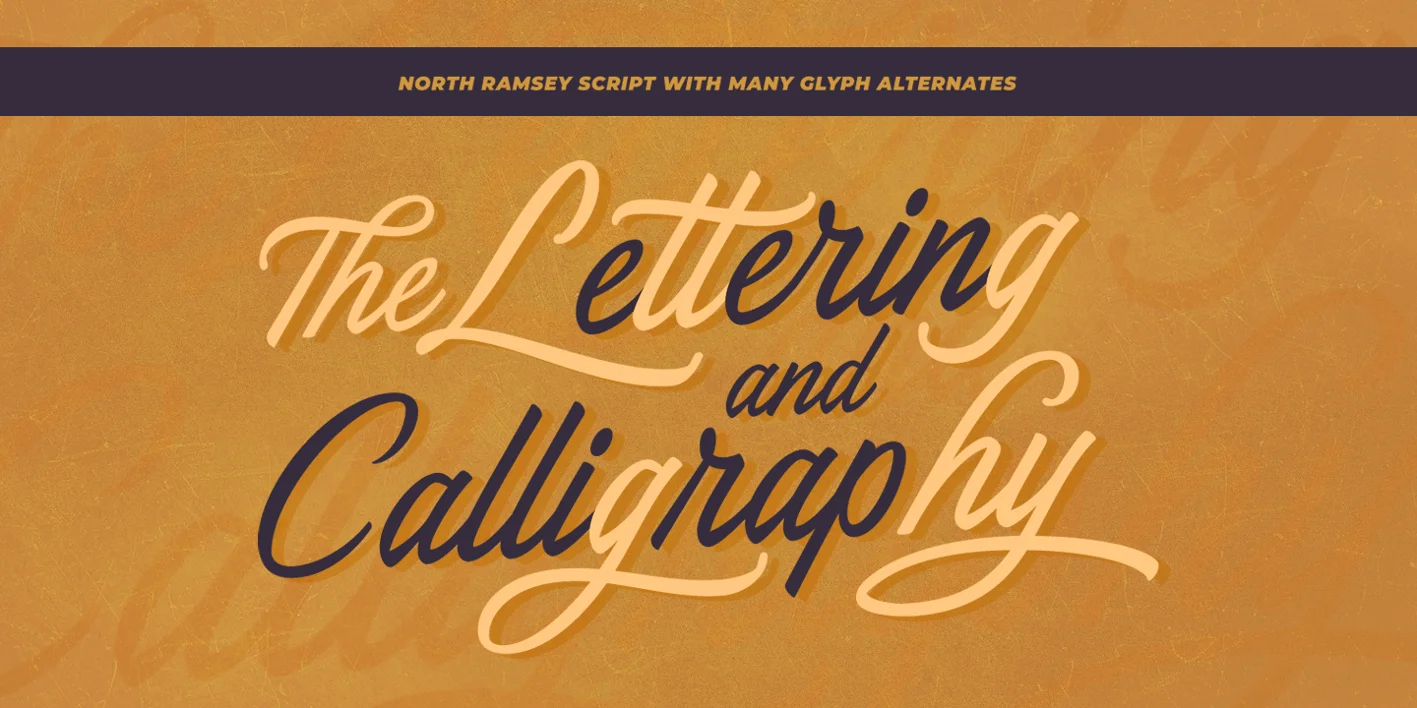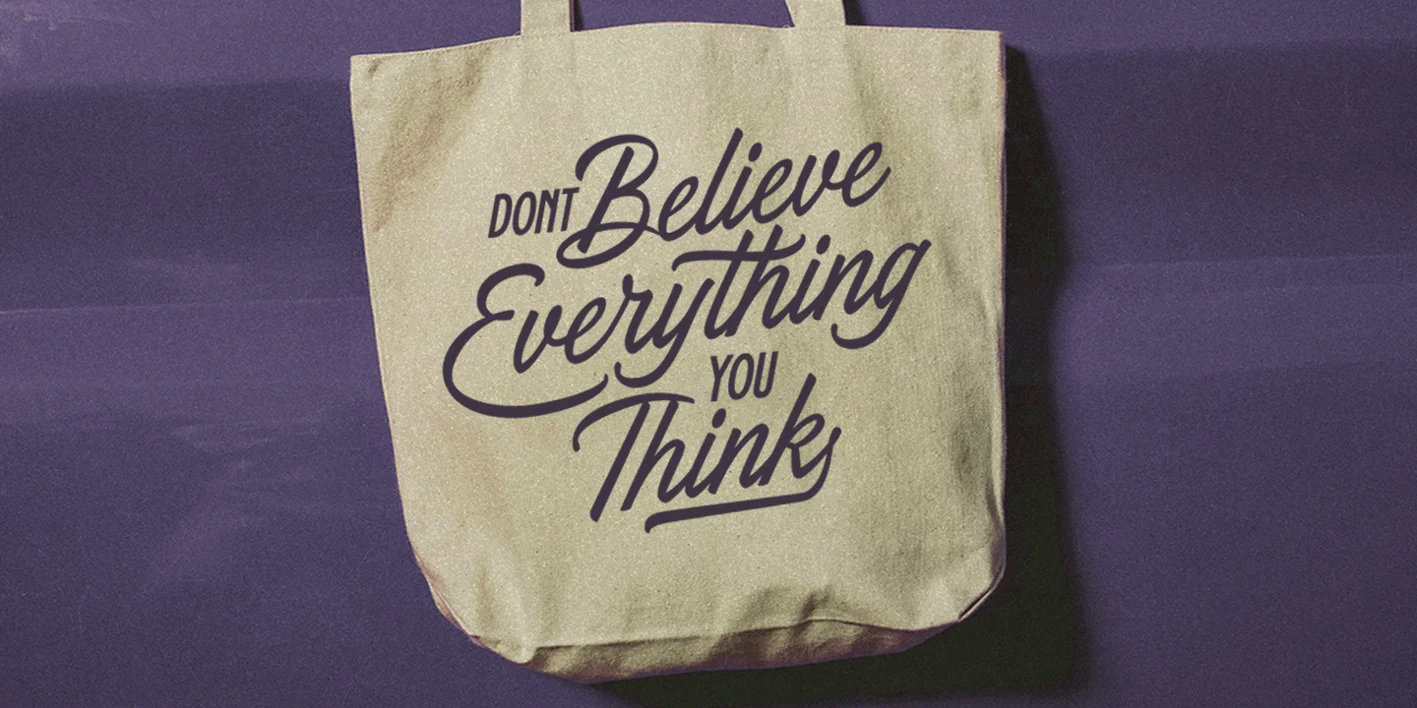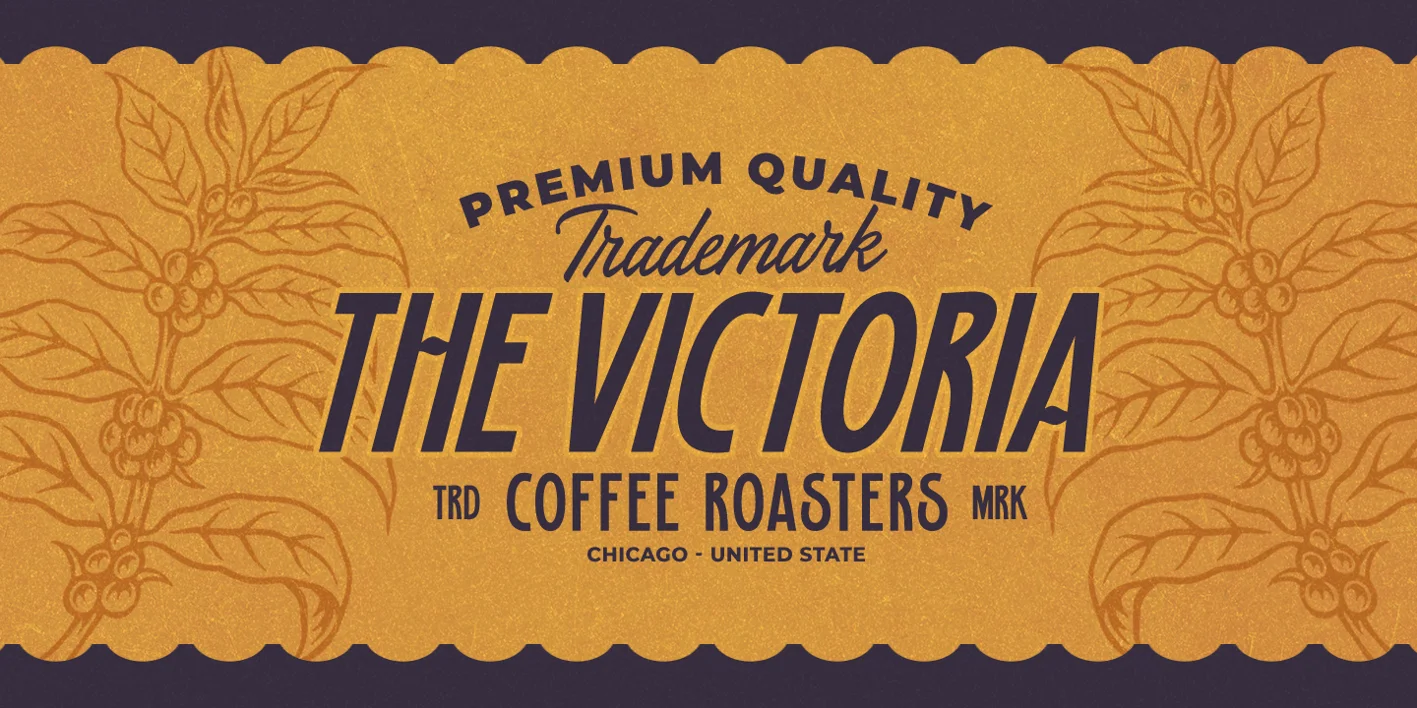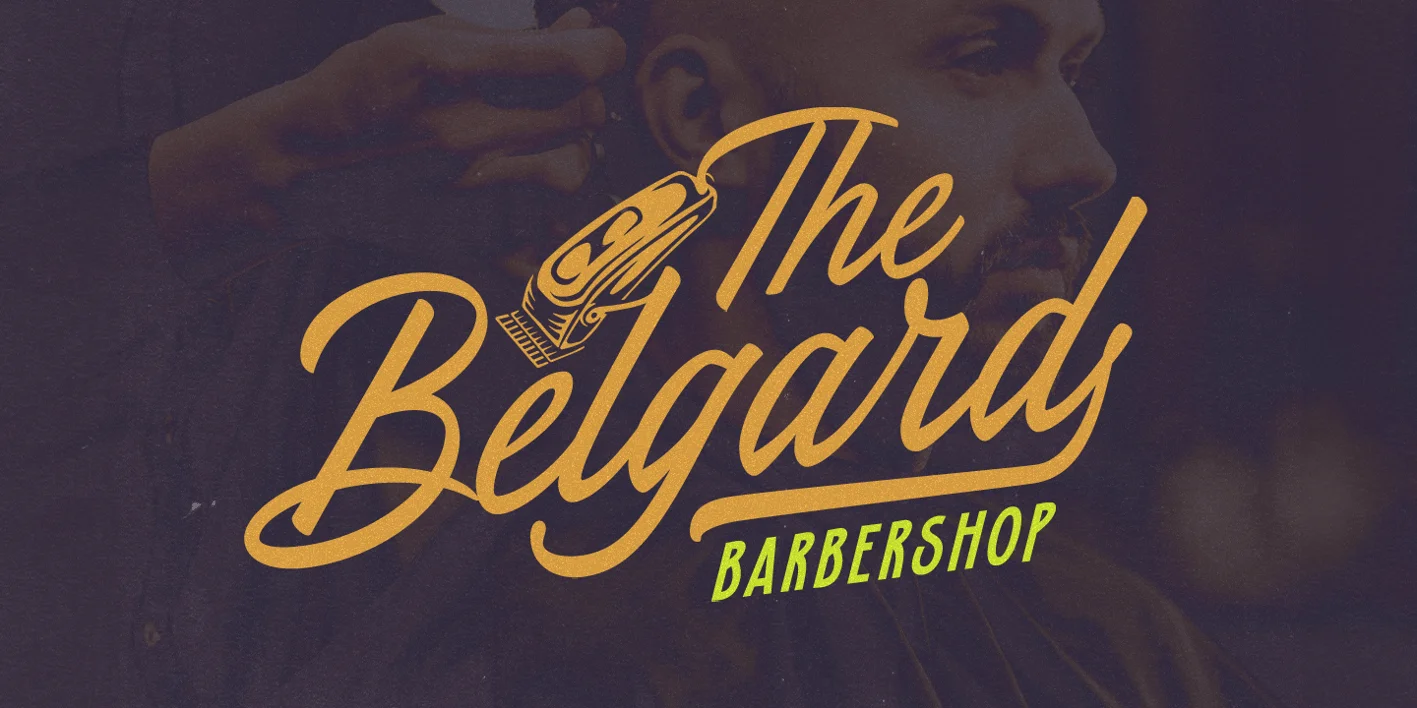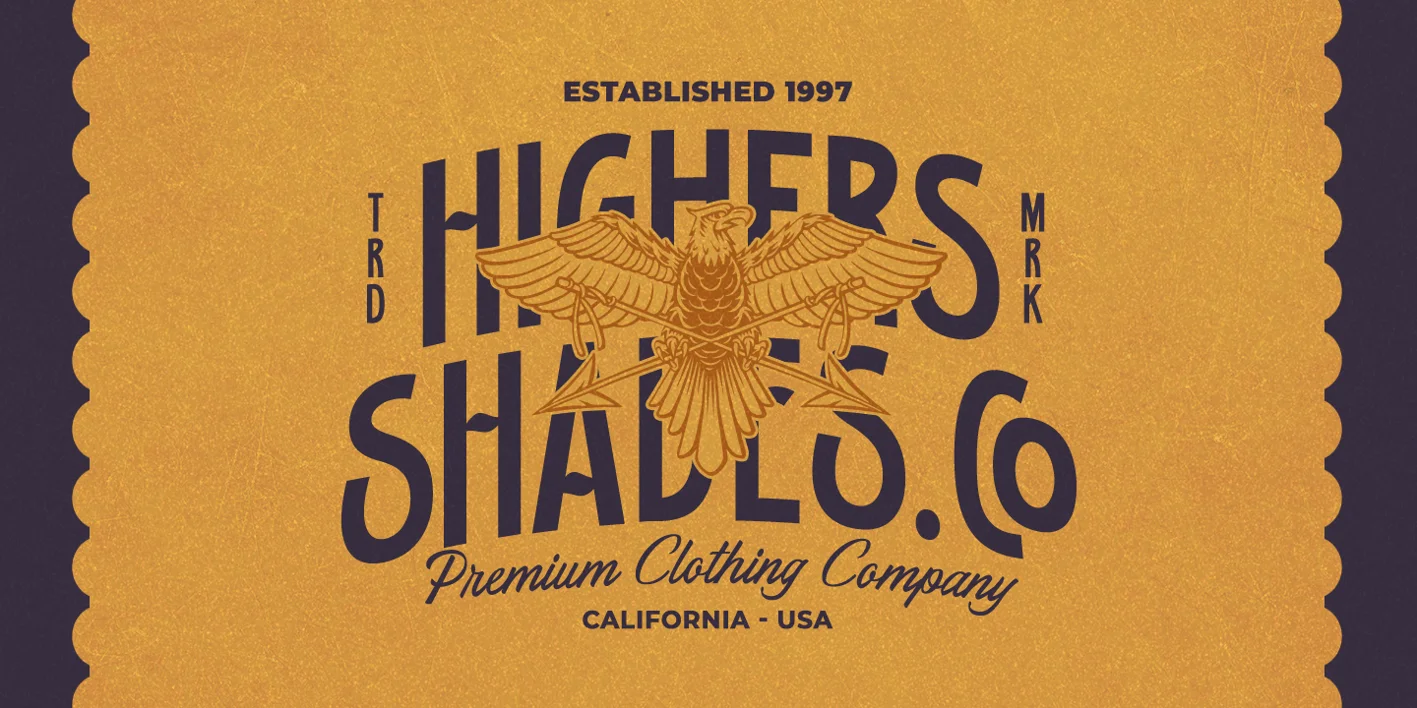
North Ramsey Font
Few typefaces manage to balance the kind of restraint that lets content lead with genuine day-to-day practicality. North Ramsey is one of them. The typeface brings a versatile sensibility to a broad range of creative disciplines, with consistent type colour across continuous text that holds up whether the work is print-first or screen-first.
In practice, North Ramsey proves particularly effective for social media graphics, signage systems, environmental graphics, annual reports, advertising campaigns. Designers reaching for it find that the type decisions feel resolved rather than laboured — a useful quality when client timelines are tight.
The range of applications extends to editorial layouts, packaging design, brand identity systems, product labels. That breadth is deliberate: the proportions and spacing were stress-tested across a wide range of mock briefs before the typeface was finalised.
The consistent rhythm of North Ramsey across a full paragraph creates the kind of even grey value that makes extended reading comfortable, a detail that matters more in long-form content than its subtlety might suggest.
Independent studios handling packaging and editorial work find North Ramsey a reliable choice for projects that demand both personality and restraint. The design avoids the self-conscious quirkiness that dates quickly, settling instead for considered distinctiveness that holds up over time.